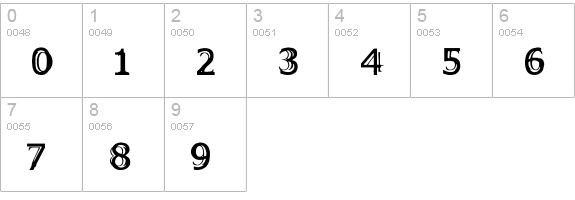
XUczlam Font Details
Introducing XUczlam font - a modern and stylish typeface that exudes elegance and creativity. This versatile font is perfect for a wide range of design projects, from branding to packaging and everything in between. With its unique and eye-catching design, XUczlam is sure to make your text stand out and leave a lasting impression. The best part? XUczlam font is completely free to download at FontsMarket.com. That's right, you can easily access this stunning font at no cost, making it a must-have addition to your font collection. Whether you're a designer looking to add a touch of sophistication to your work or simply someone who appreciates beautiful typography, XUczlam font is the perfect choice. Download it today and elevate your designs to the next level!